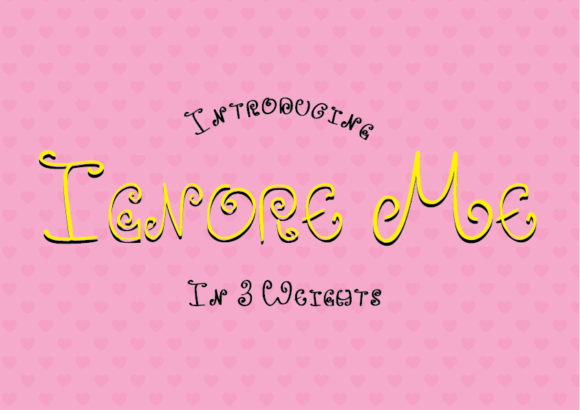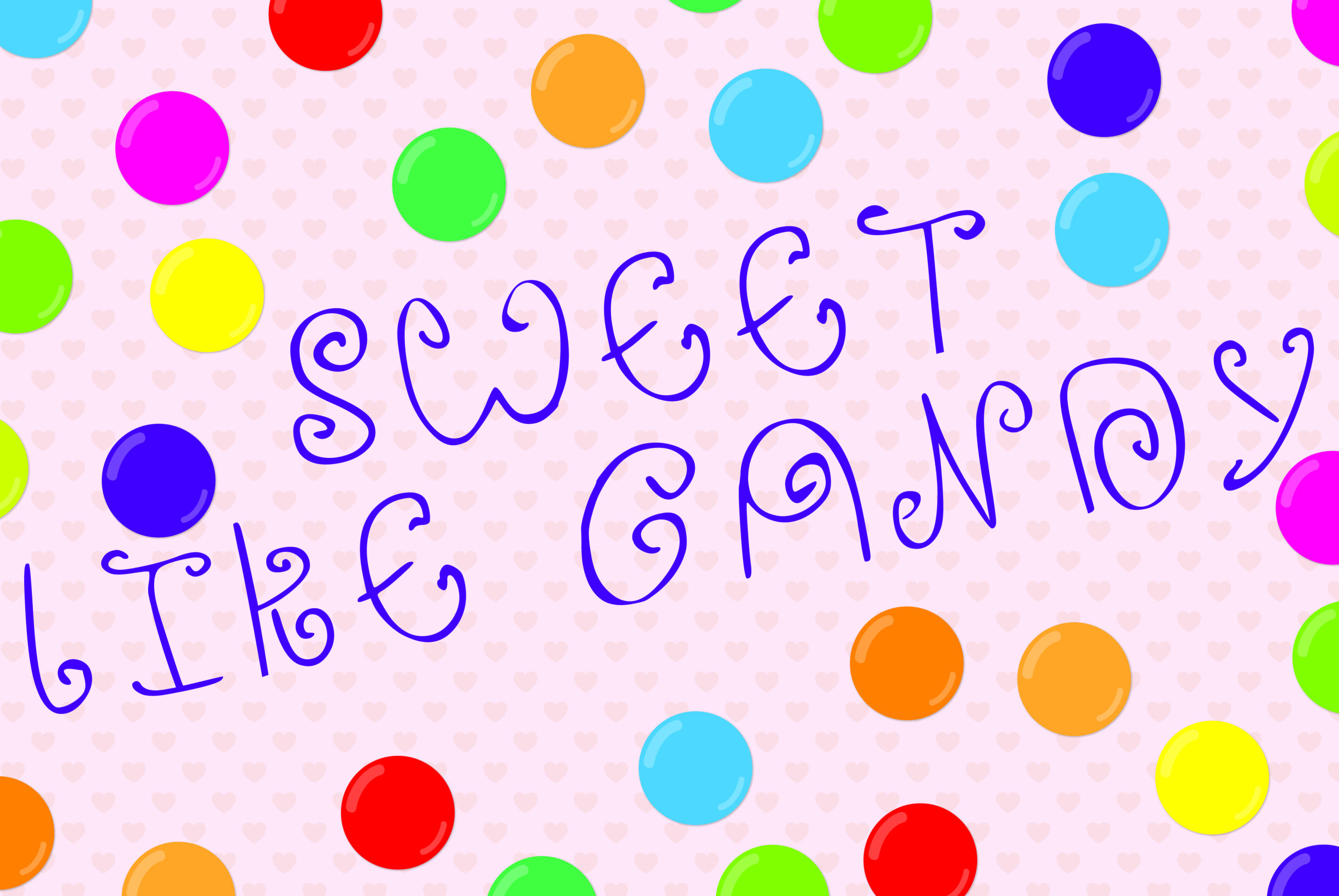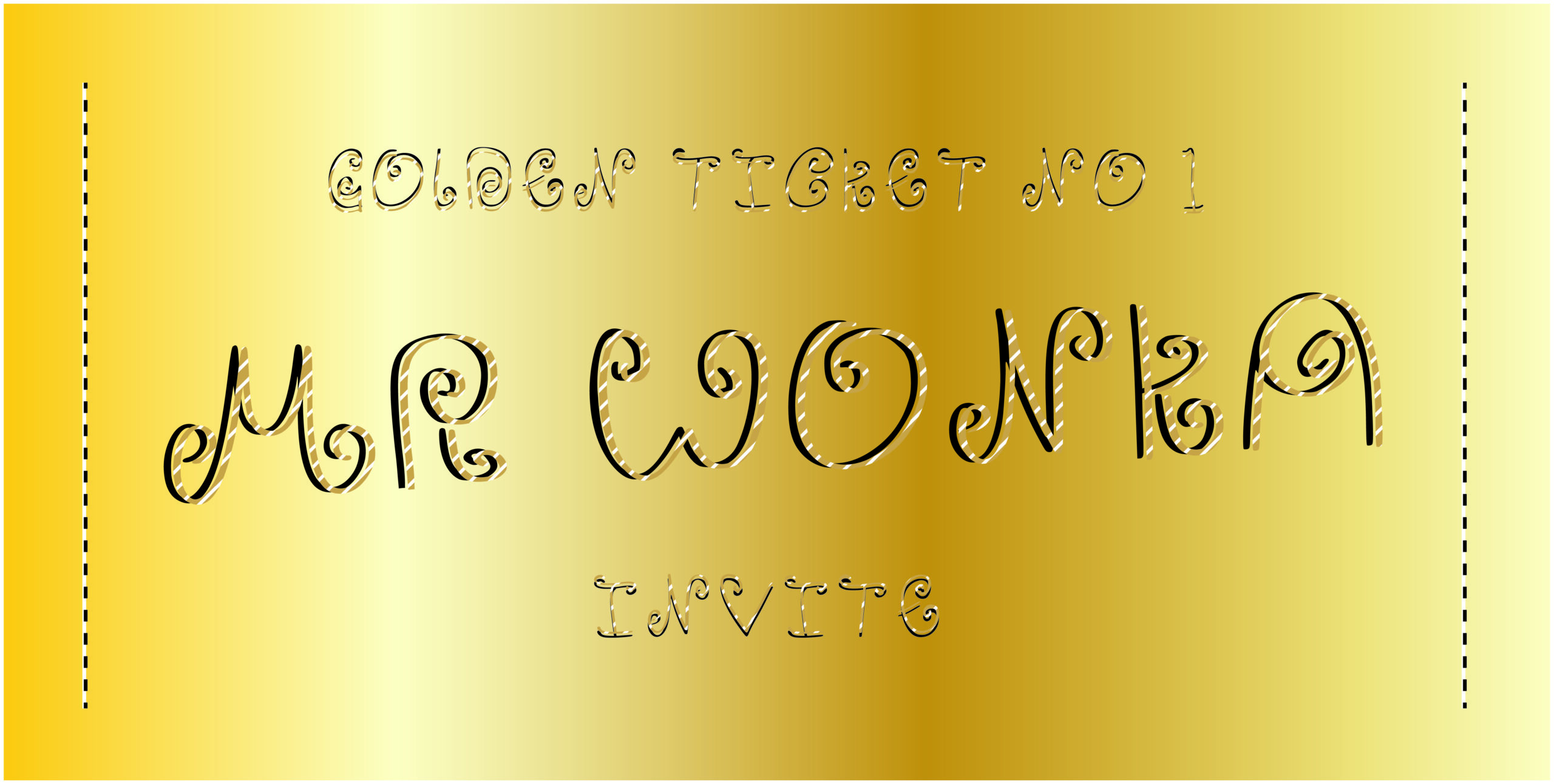
HomeScript FontsIgnore Me Font Script Fonts Ignore Me Font FacebookXPinterestWhatsApp Ignore Me Font Poster 2 Ignore Me Font Poster 3 Ignore Me Font Poster 4 Ignore Me Font Poster 5 About Ignore Me Font If you want to make an impact or just want to look a bit fancy then look no further than this font! DOWNLOAD ON CREATIVE FABRICAThis font is sold and delivered by Creative Fabrica. Font Canyon may earn a commission if you buy through this link. People also explored Fresh Wumpa Font Hello Mydear Font Dastine Font Cranslime Font Halloween Ghost Font Garnite Font Sentosa Font Tomatoes Merchant Font 343 0 TagsIgnore Me Font Previous articleSpagbowl FontNext articleSeinna Grace Font LEAVE A REPLY Cancel reply Comment: Please enter your comment! Name:* Please enter your name here Email:* You have entered an incorrect email address! Please enter your email address here Website: Save my name, email, and website in this browser for the next time I comment. Personal Use Free Mullia Personal Use Free Read more about this font Droid Personal Use Free Read more about this font BD TinyFont Personal Use Free Read more about this font Densmore Personal Use Free Read more about this font BLOG The 10 Best Handwriting Fonts to Add Personality to Your Designs 10 of the Best Handwriting Fonts for Adding Personality to Your Designs There will undoubtedly be no other better choice than handwriting fonts to give... Modern Sans-Serif Fonts That Brands Love in 2025 Fonts That Capture the Spirit of New York City Free vs Paid Fonts: Why Investing in Premium Fonts Is Worth It